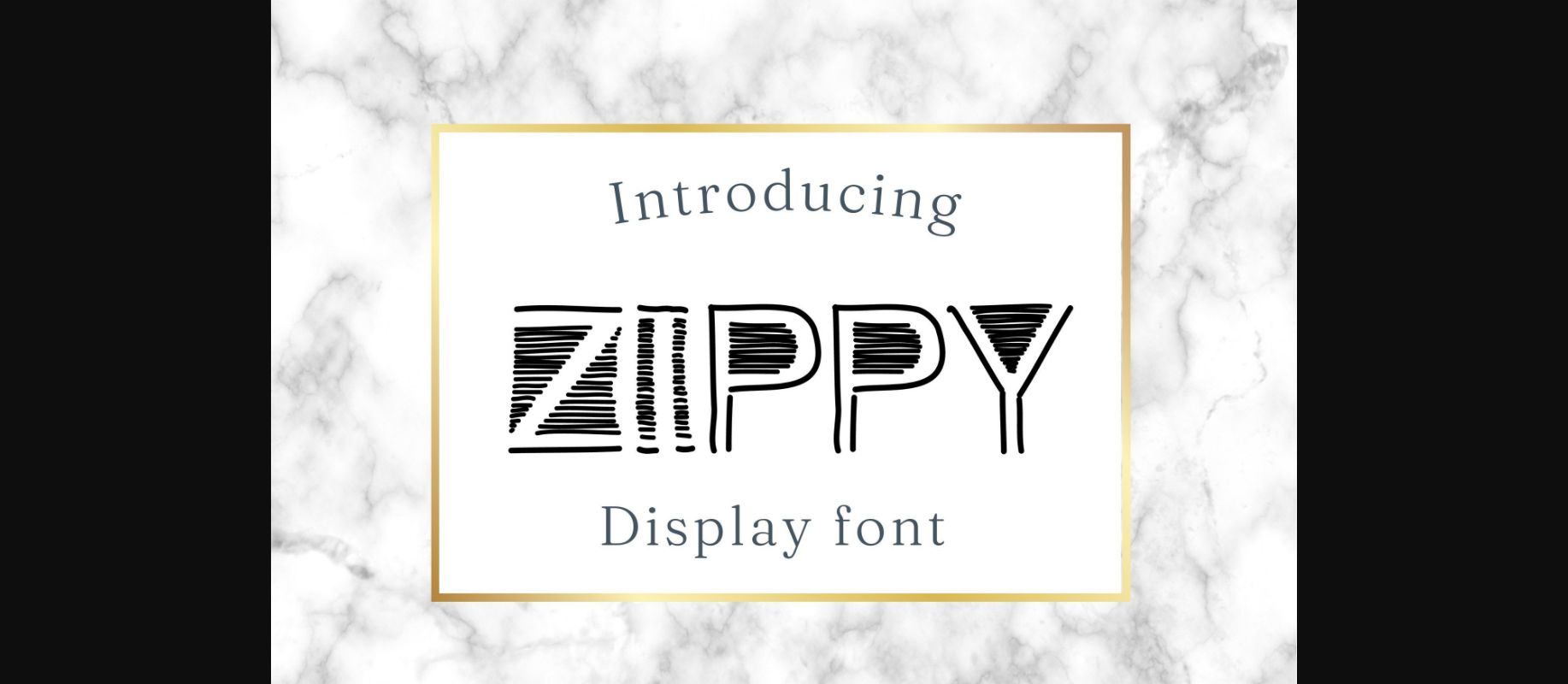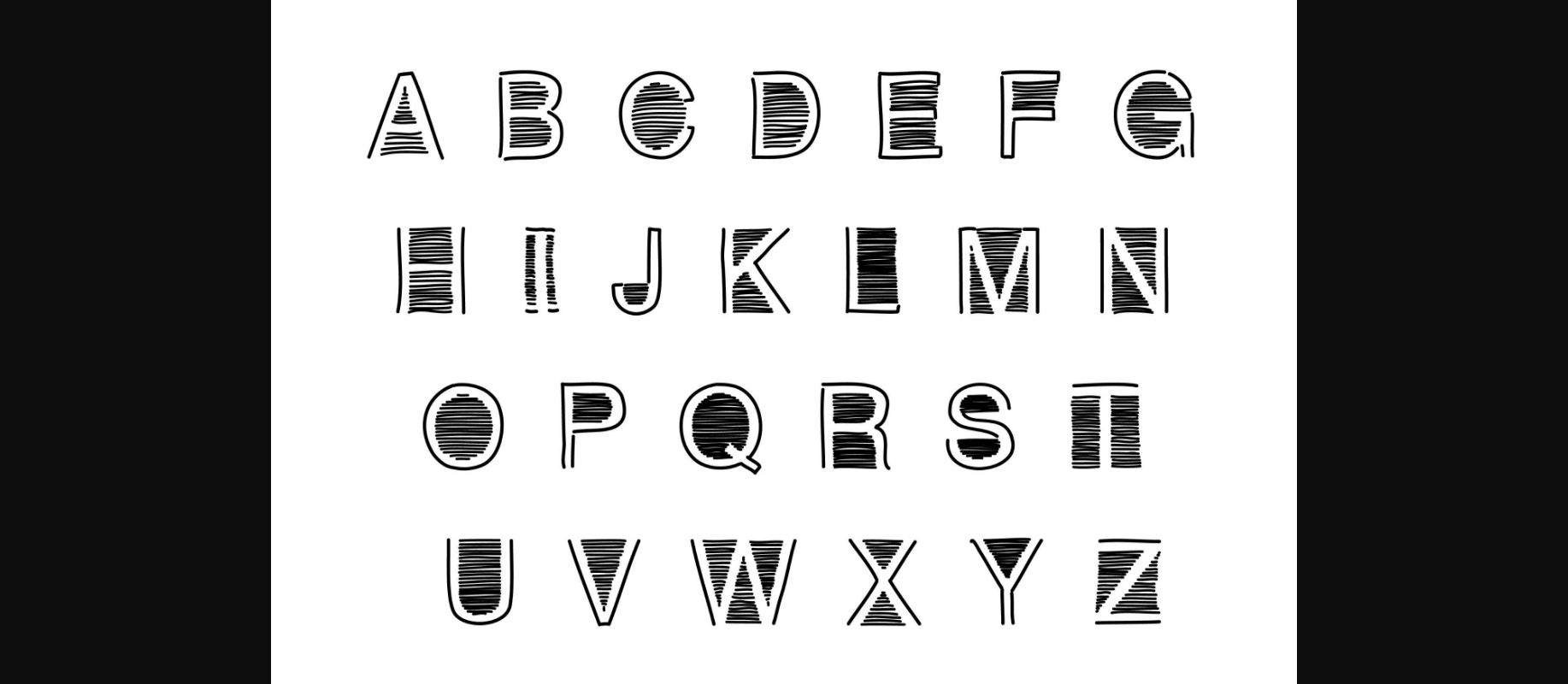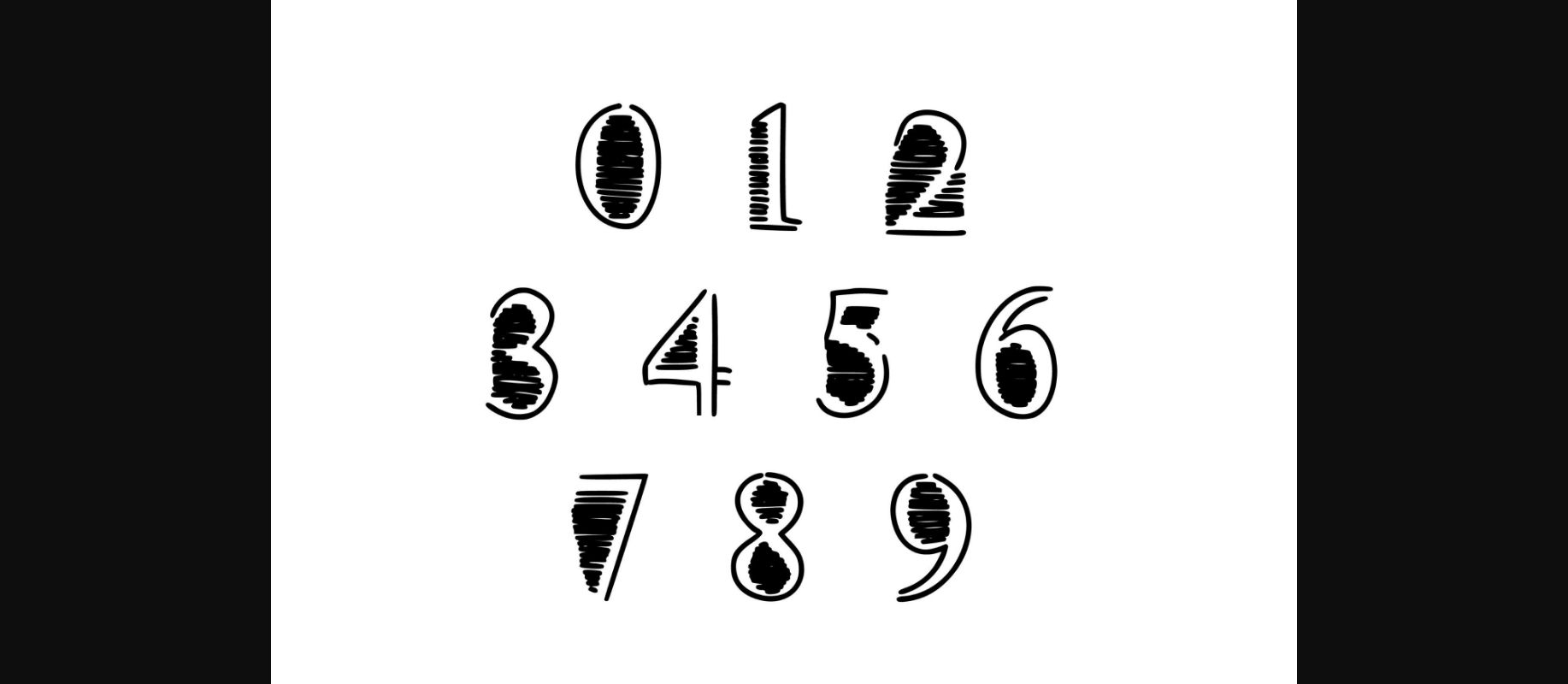
Zippy Font
About Zippy Font
Zippy is a unique decorative font with stroke lines.
This typeface will be a fantastic addition to your library of fonts, regardless of the subject, as it has the ability to improve any design.